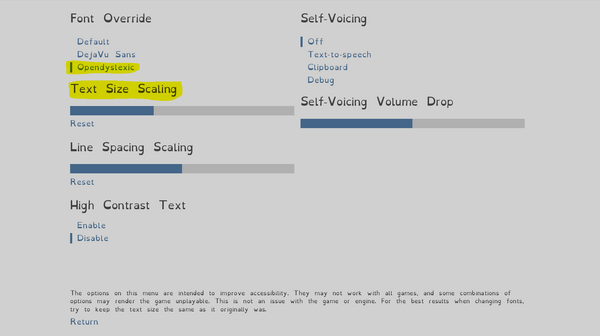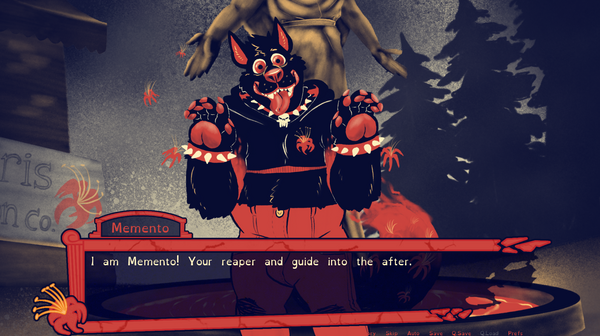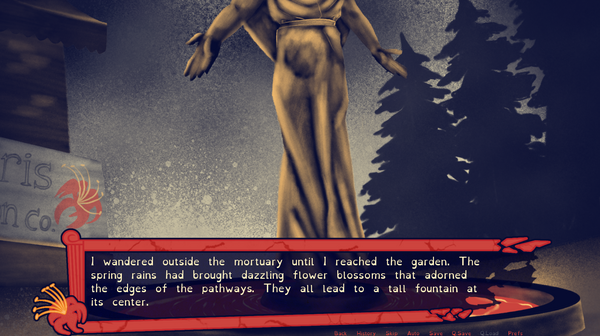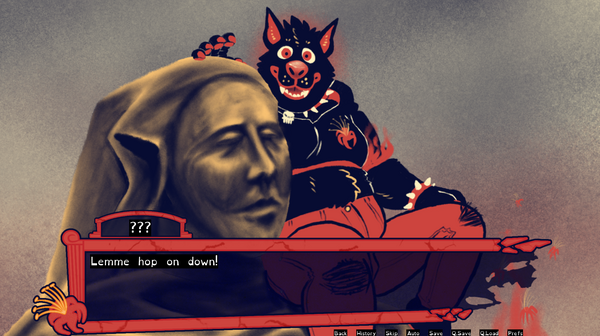
One feature we wanted to include in our game, but didn't have time to, was to give the reader a clear option to change the text font. The font we chose is not the most legible. It was a stylistic choice we made to mimic what you might find on a tomb stone.
If you'd like to change the font to help enhance legibility, here's how you can do it!
We'd like to release a patch in the future that'll allow the player to make this change in the game's preferences menu. However, for the My Wolf Game Jam, we're not allowed to make any alterations to our submission until voting is completed. Once the game jam is over, we'll get to work on implementing a font override feature that's more user-friendly.